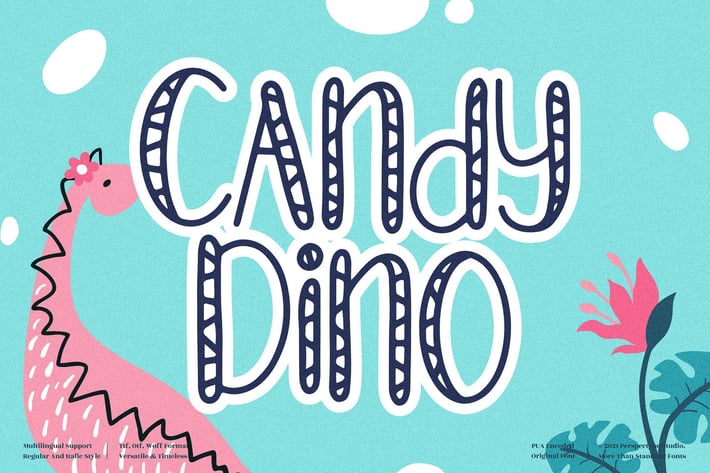
Candy Dino Quirky Font
Candy Dino is a playful and quirky font that bursts with fun personality and cheerful energy. Inspired by cute doodles and childlike imagination, its bouncy letters bring joy and charm to any project, making it perfect for lighthearted, colorful designs.
Fun and bold hand-drawn lettering style
Smooth readability and consistent line weight
Perfect for both print and digital creative works
Kids’ book covers and educational materials
Toy packaging and playful branding
Greeting cards and invitation designs
Social media posts and fun quotes
* DIY projects and creative crafts
Whimsical, fun, and full of dino-sized charm — Candy Dino brings out the playful side of your designs!